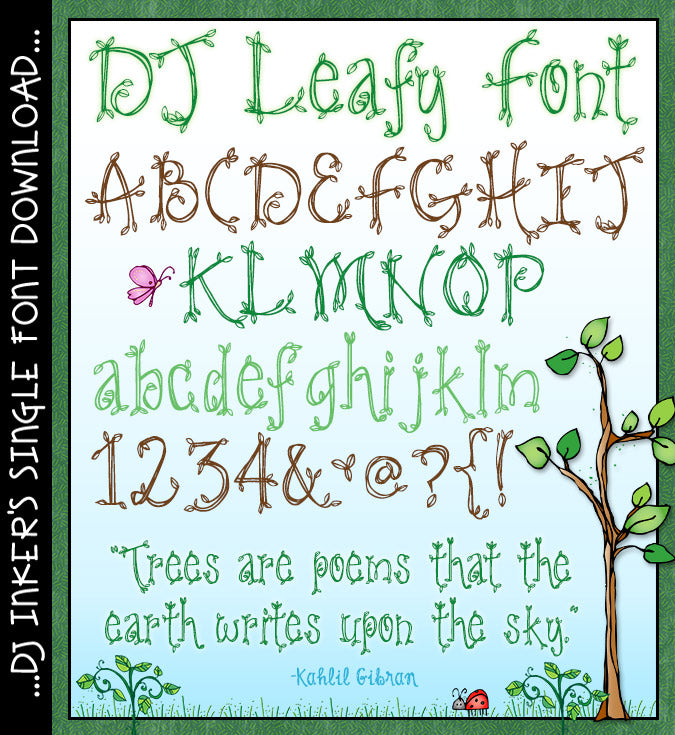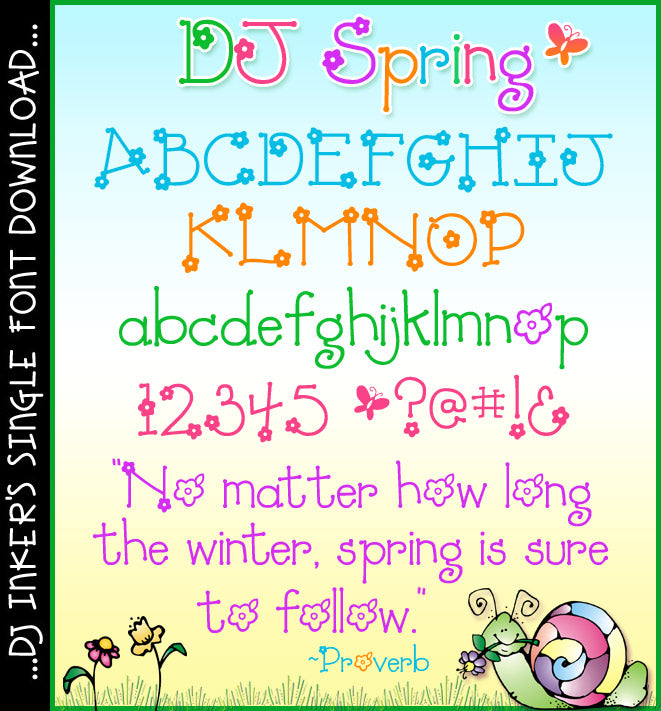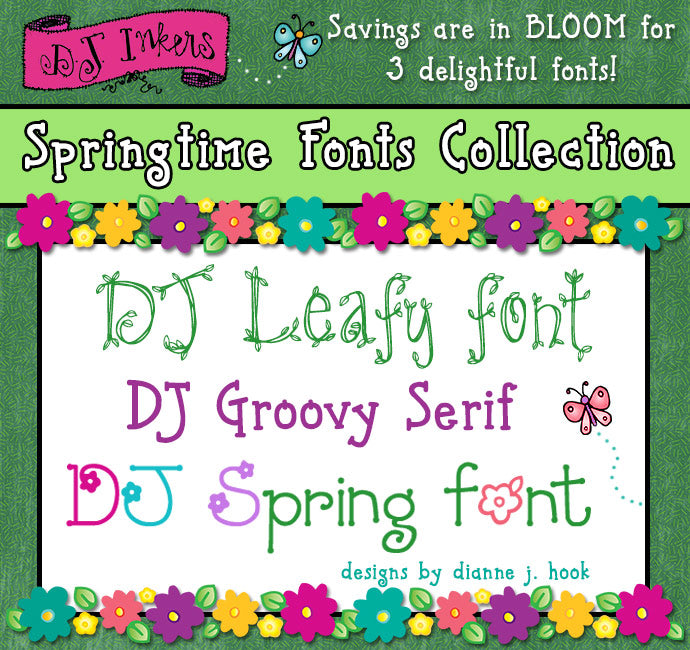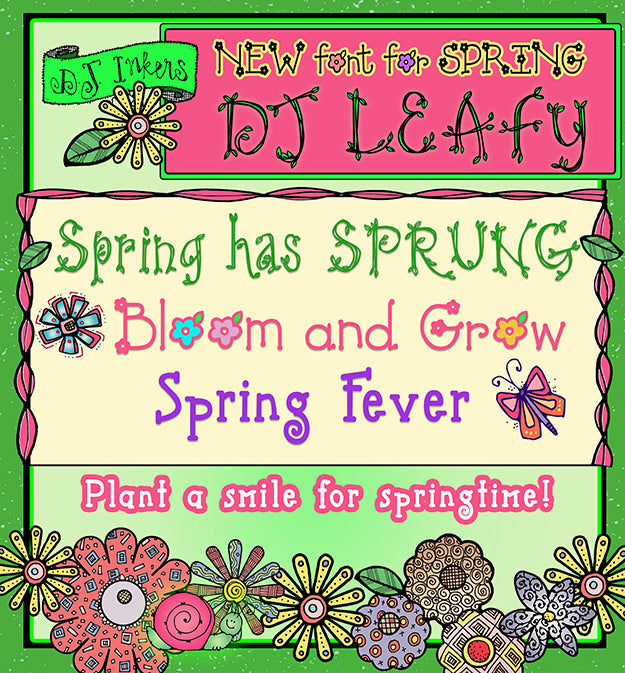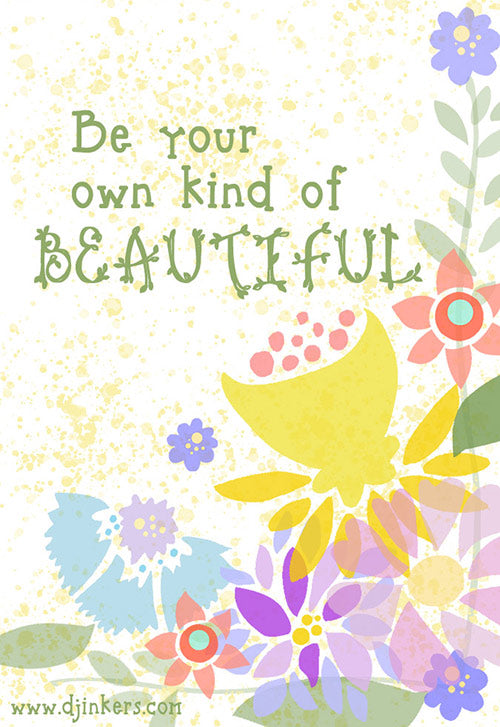
DJ Springtime Fonts Collection Download
Looking for a fresh new font to plant on your projects? Savings are in
bloom with our darling Springtime Fonts Collection! Set includes 3
DJ fonts to help you create smiles for spring: DJ Leafy, DJ Spring and
Hand drawn lettering by Dianne J Hook © DJ Inkers.